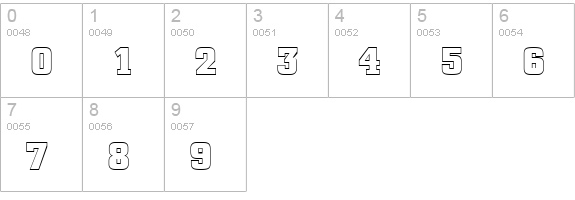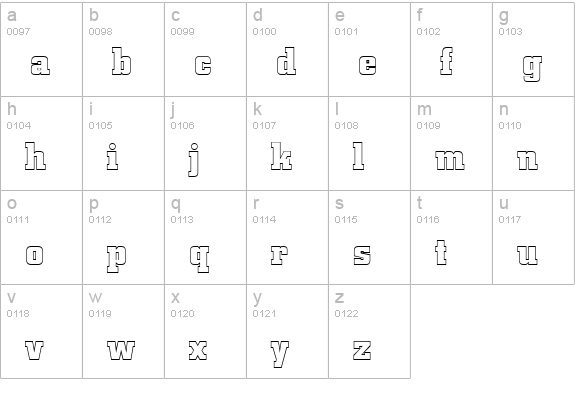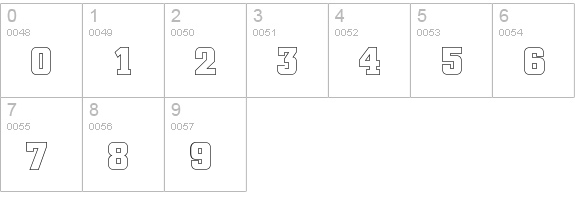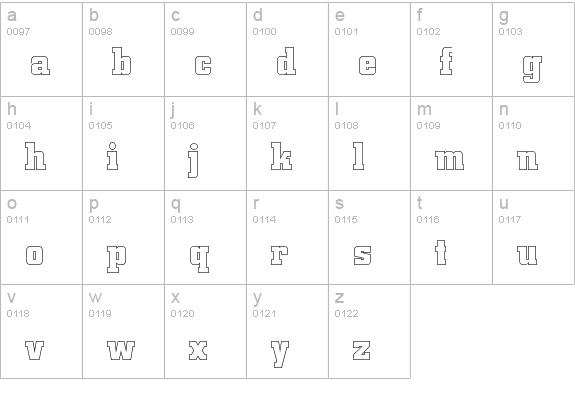
BorghsHollow Normal Font Details
BorghsHollow Normal is the standard, neutral variant in the BorghsHollow typeface family \xE2\x80\x94 well suited to general body text, paragraphs, and standard typographic work.
BorghsHollow Normal font is a versatile and modern typeface that is perfect for a wide range of design projects. Its clean lines and bold presence make it a great choice for headlines, titles, and branding materials. With a unique hollow design, BorghsHollow Normal font adds an extra touch of creativity and style to any project. This font is freely available to download at FontsMarket.com, making it easy for designers and creatives to access and use in their work. Whether you're designing a website, creating a poster, or crafting a logo, BorghsHollow Normal font is sure to make a statement and elevate your design to the next level. Add a touch of sophistication and modernity to your projects with BorghsHollow Normal font today.